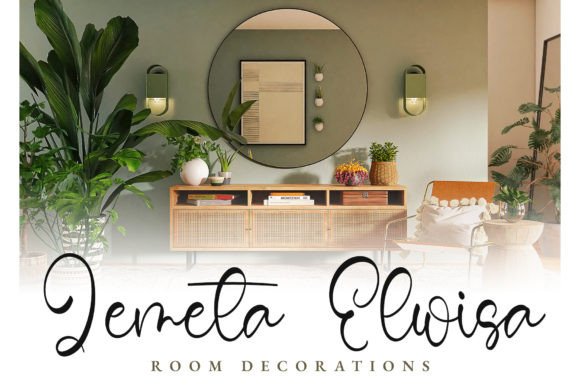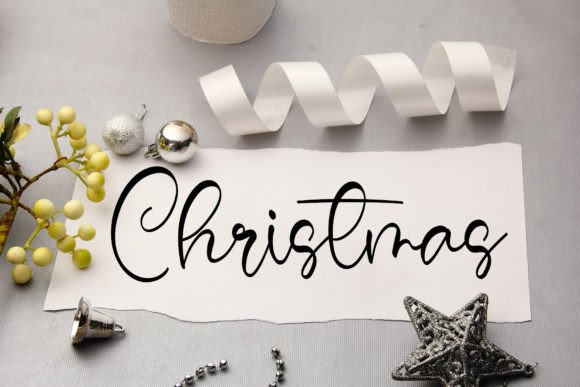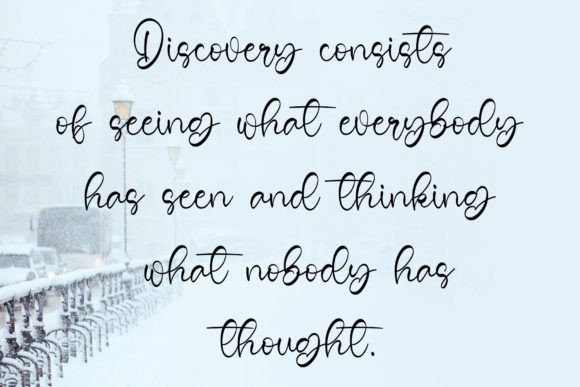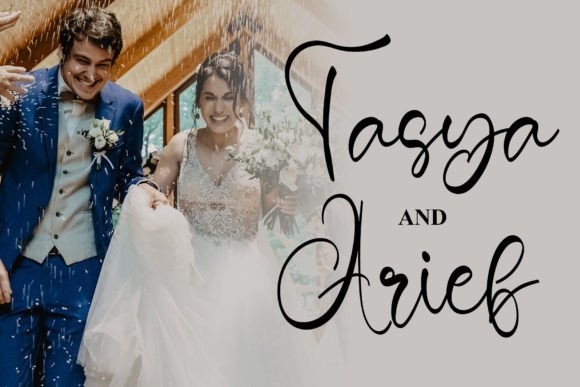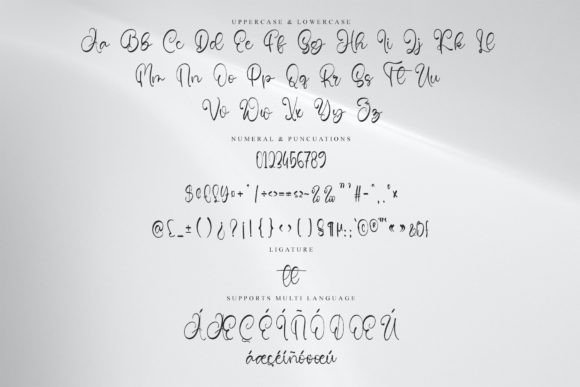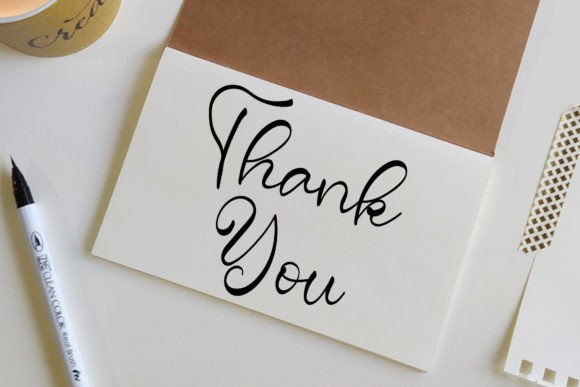
Introduction to Snobby Font
As you sit at your desk, surrounded by scraps of paper, sketches, and half-finished projects, the question often arises: “How can I make this design truly special?” It’s in these moments of creative frustration that we stumble upon the perfect solution – a font that speaks to our unique style and elevates our work to new heights. Enter the enchanting world of the Snobby Font, a design resource that breathes life into our creations and adds a touch of elegance to every project.
For designers, the value of a high-quality font like Snobby lies in its ability to convey a personal message and connect with our audience on a deeper level. With its free download and transparent background, Snobby Font is the perfect addition to any creative project, from wedding invitations to business logos. Whether you’re working on a personal or professional project, this font is sure to leave a lasting impression and set your work apart from the rest.
But what sets Snobby apart from other fonts is its unique ability to evoke a sense of warmth and cordiality, making it an ideal choice for greeting cards and thank you notes. As we explore the world of Snobby Font, we’ll delve into its features, benefits, and how it can elevate your design projects to new heights.
Key Features of Snobby Font
- Unique, elegant script font with a transparent background, perfect for adding a touch of sophistication to any design.
- Includes a comprehensive character set, covering a wide range of languages and characters.
- Resolution-independent, making it suitable for use at any size, from small titles to large headlines.
- Ideal for use in various design projects, including invitations, wedding stationery, and luxury branding materials.
Honest Review: Snobby Font
I recently stumbled upon the Snobby Font, a high-quality design resource that I just had to share with the community. After exploring its features, I must say it’s a fantastic addition to any creative project.
- ✨ The font’s unique design makes it stand out from more generic options, adding a touch of sophistication to any project.
- ⚠️ The font may not be suitable for all audiences, as its design can come across as somewhat pretentious.
- ⚠️ The font’s bold style may be overwhelming in smaller text sizes.
Overall, I’m impressed with the Snobby Font’s design and versatility. While it may not be perfect for every project, it’s certainly a valuable resource to have in your toolkit. If you’re looking for a high-quality, unique font for your creative project, the Snobby Font is definitely worth checking out.
Tips for Getting the Most Out of Snobby Font
To get the most out of Snobby Font, use it with a transparent background to create a clean and modern look. You can also use it in combination with other design resources, such as graphics and textures, to add depth and interest to your design.
Common Use Cases for Snobby Font
Snobby Font is commonly used in a range of creative projects, including logos, business cards, posters, presentations, and resumes. It’s a versatile font that can be used in a variety of contexts, from formal to informal.
Q: Does Snobby Font have a transparent background?
Yes, Snobby Font comes with a transparent background, making it easy to use in various design scenarios, from digital to print projects. This feature allows you to seamlessly integrate the font into your design without any visual distractions.